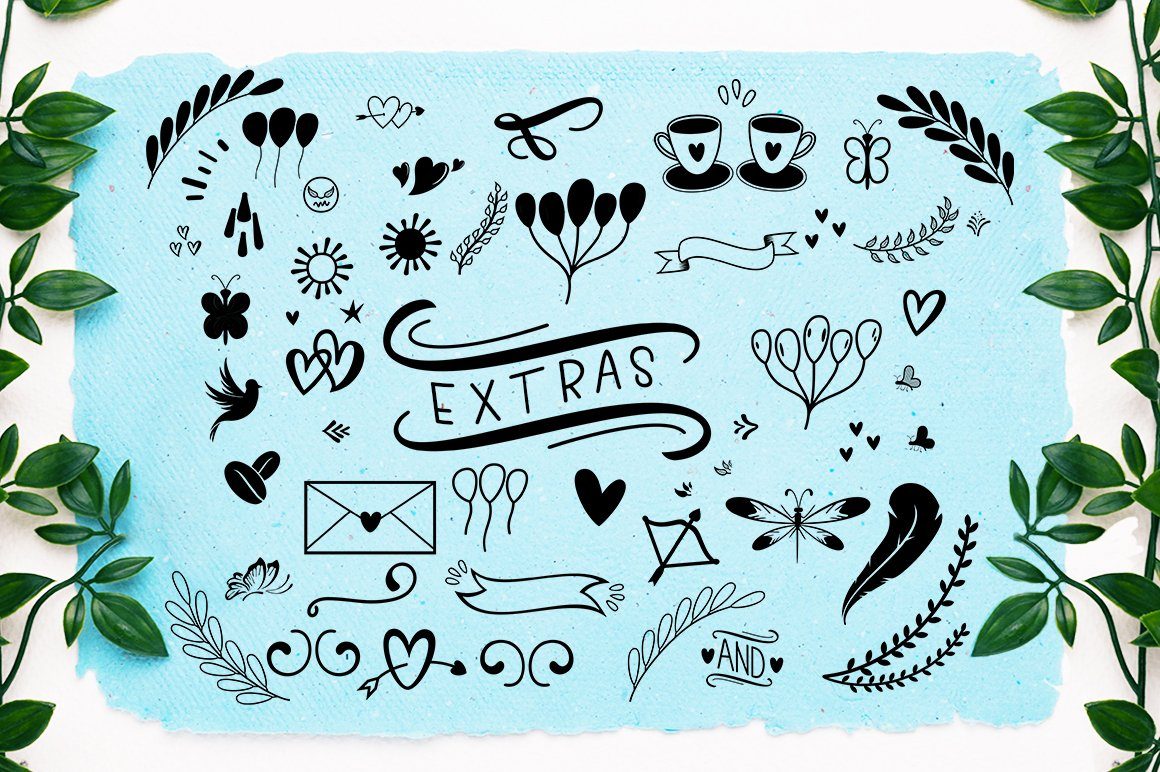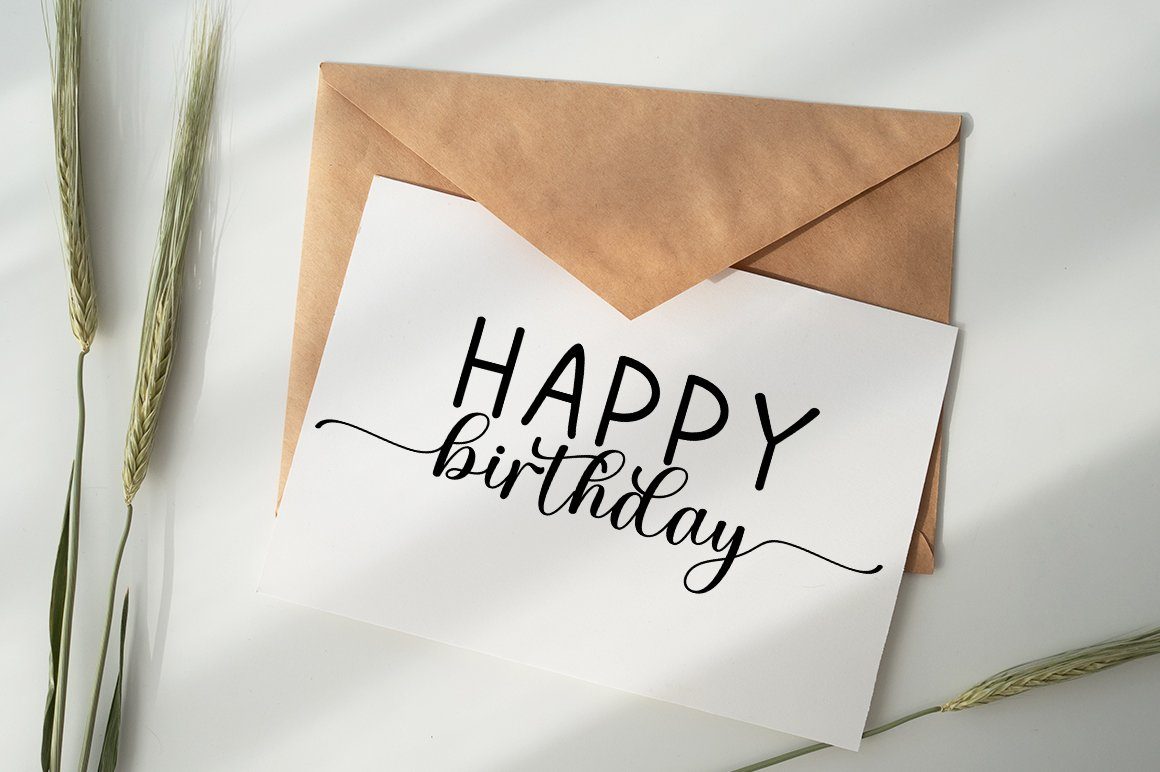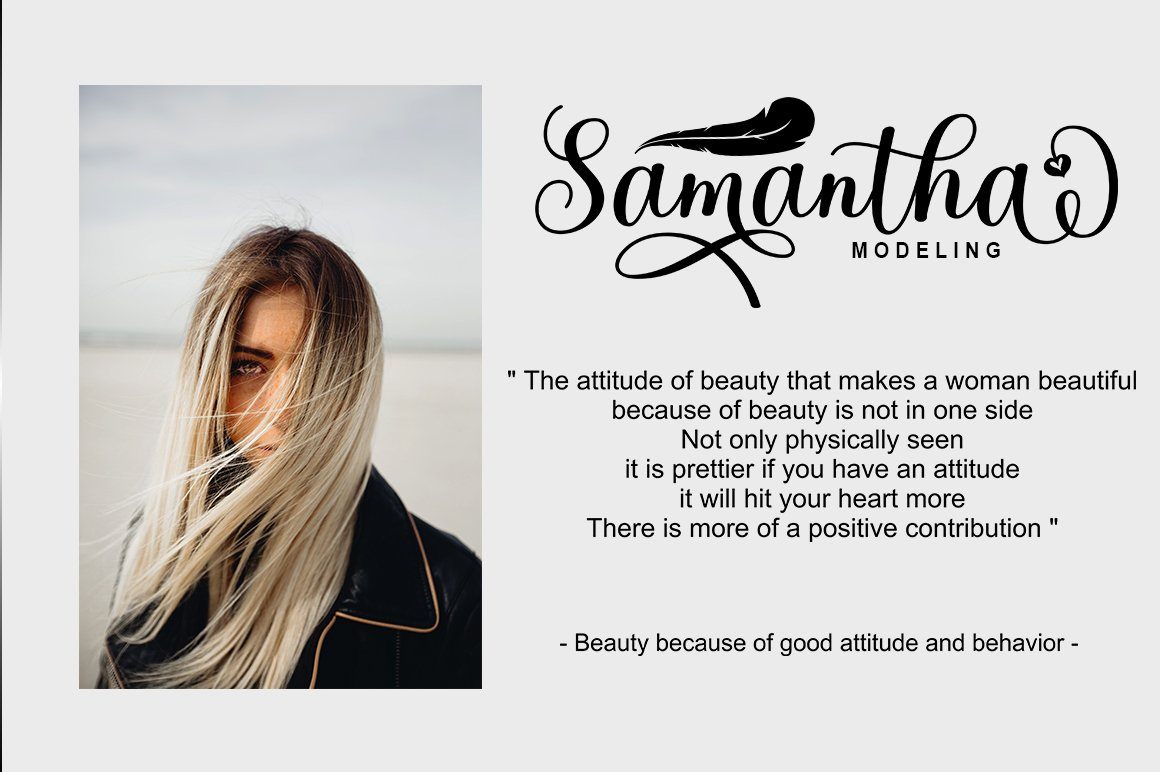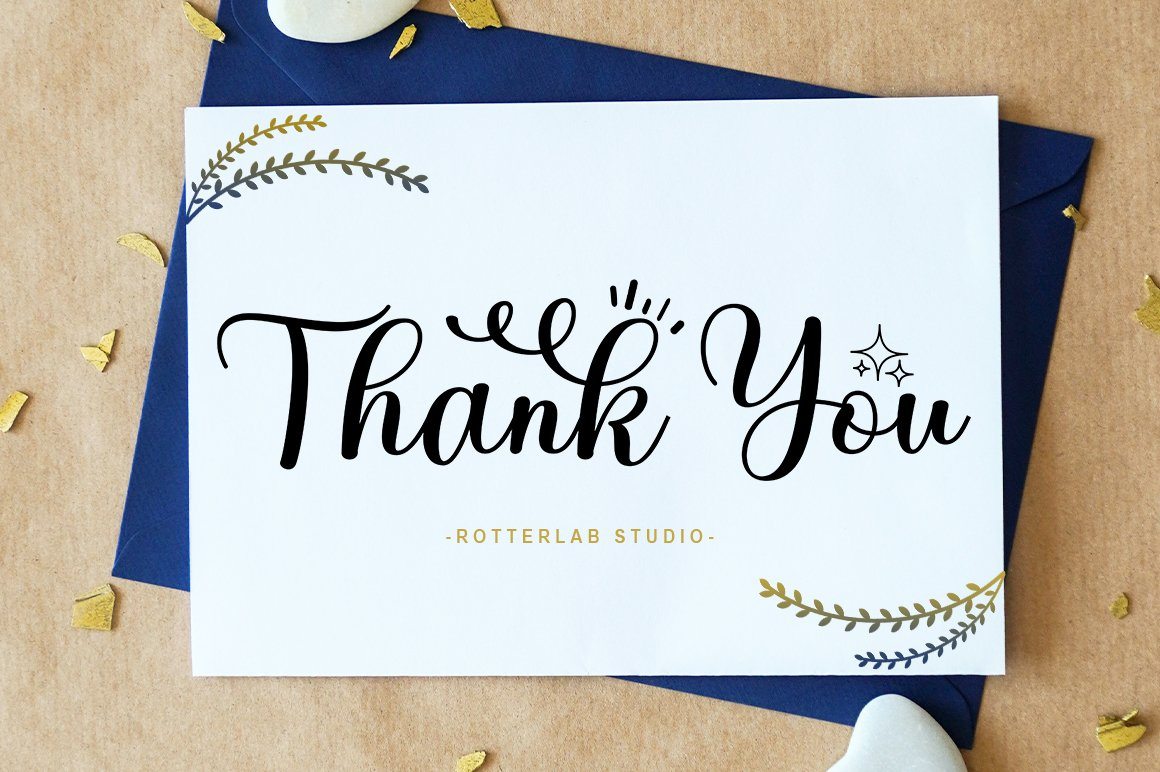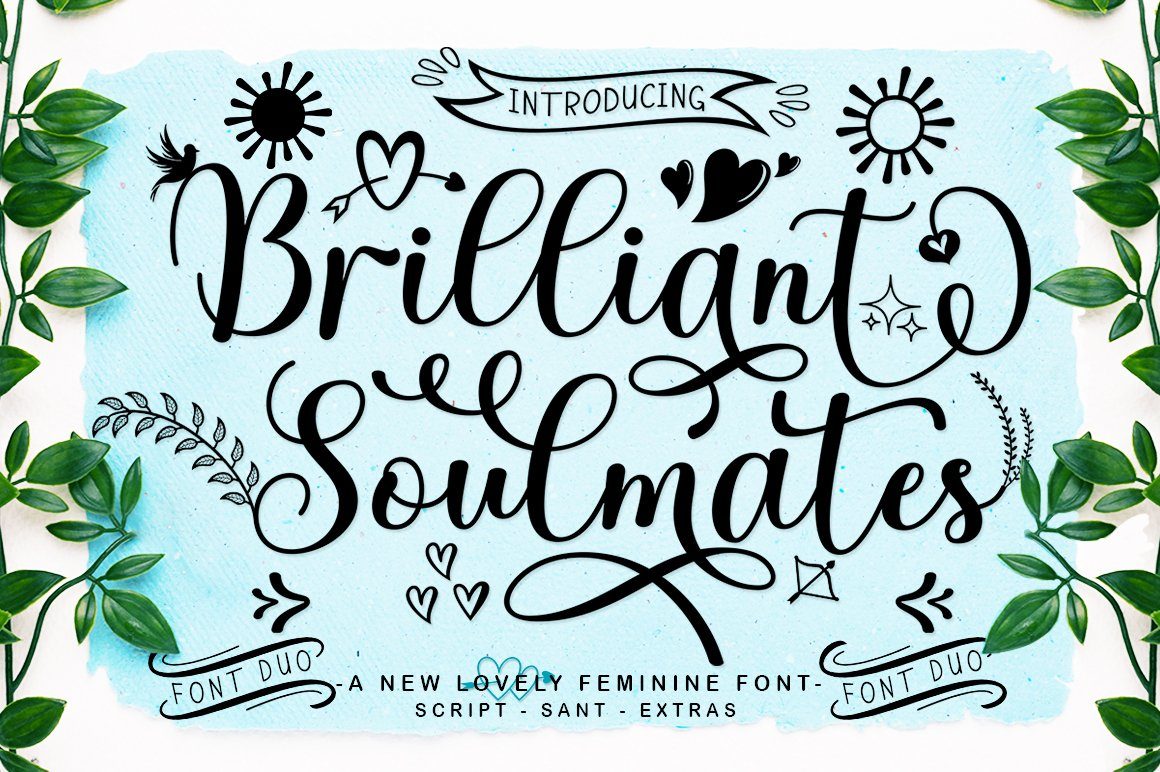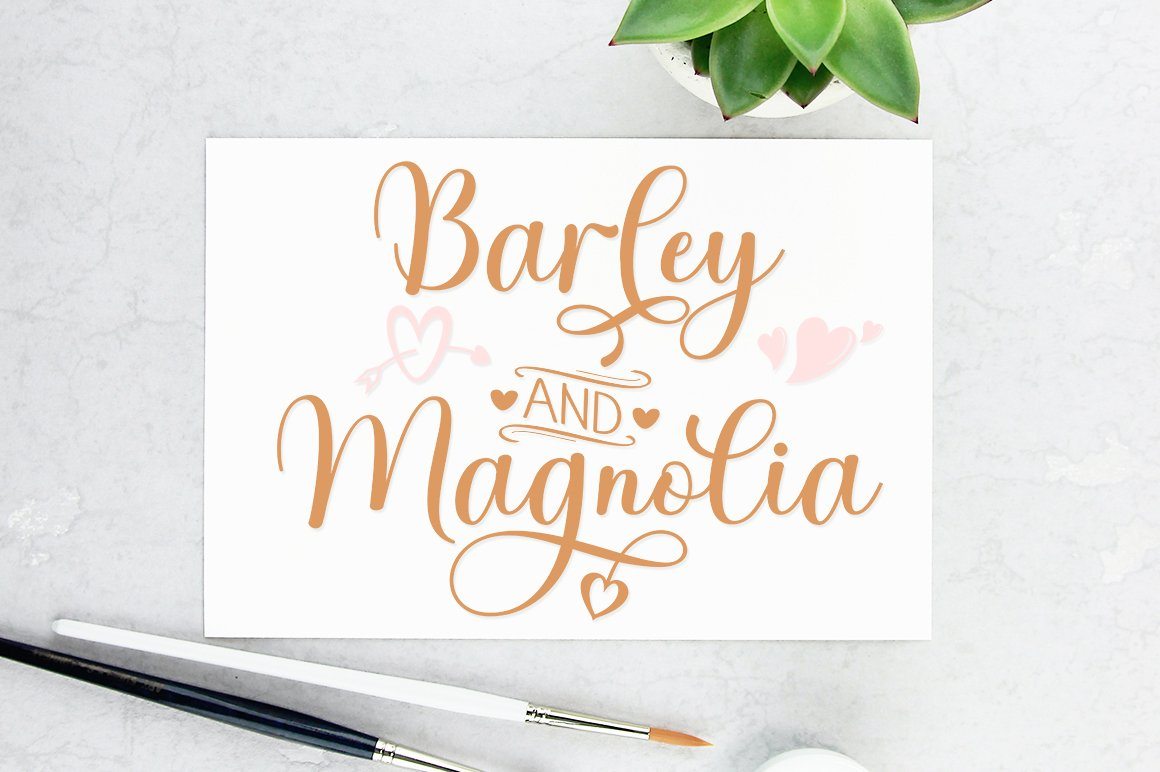
About Brilliant Soulmates Font Duo Plus Extras
Brilliant Soulmates Font Duo Plus Extras is a new modern script font with an irregular baseline. Stylish and feminine. Sweet Love looks beautiful on wedding invitations, thank you cards, quotes, greeting cards, logos, business cards and many more. Perfect for use in ink or watercolor. Includes initial and terminal letters, alternatives, ligatures, and multiple language support. Files include: Brilliant Soulmates Script OTF Brilliant Soulmates Script TTF Brilliant Soulmates SANT OTF Brilliant Soulmates SANT TTF Brilliant Soulmates Extras OTF Brilliant Soulmates Extras TTF To activate the OpenType Stylistic alternative, you need a program that supports OpenType features such as Adobe Illustrator CS, Adobe Indesign & CorelDraw X6-X7, Microsoft Word 2010 or a later version. There are additional ways to alternate / swash, using the Character Map (Windows), Nexus Font (Windows), Font Book (Mac) or a software program like PopChar (for Windows and Mac).